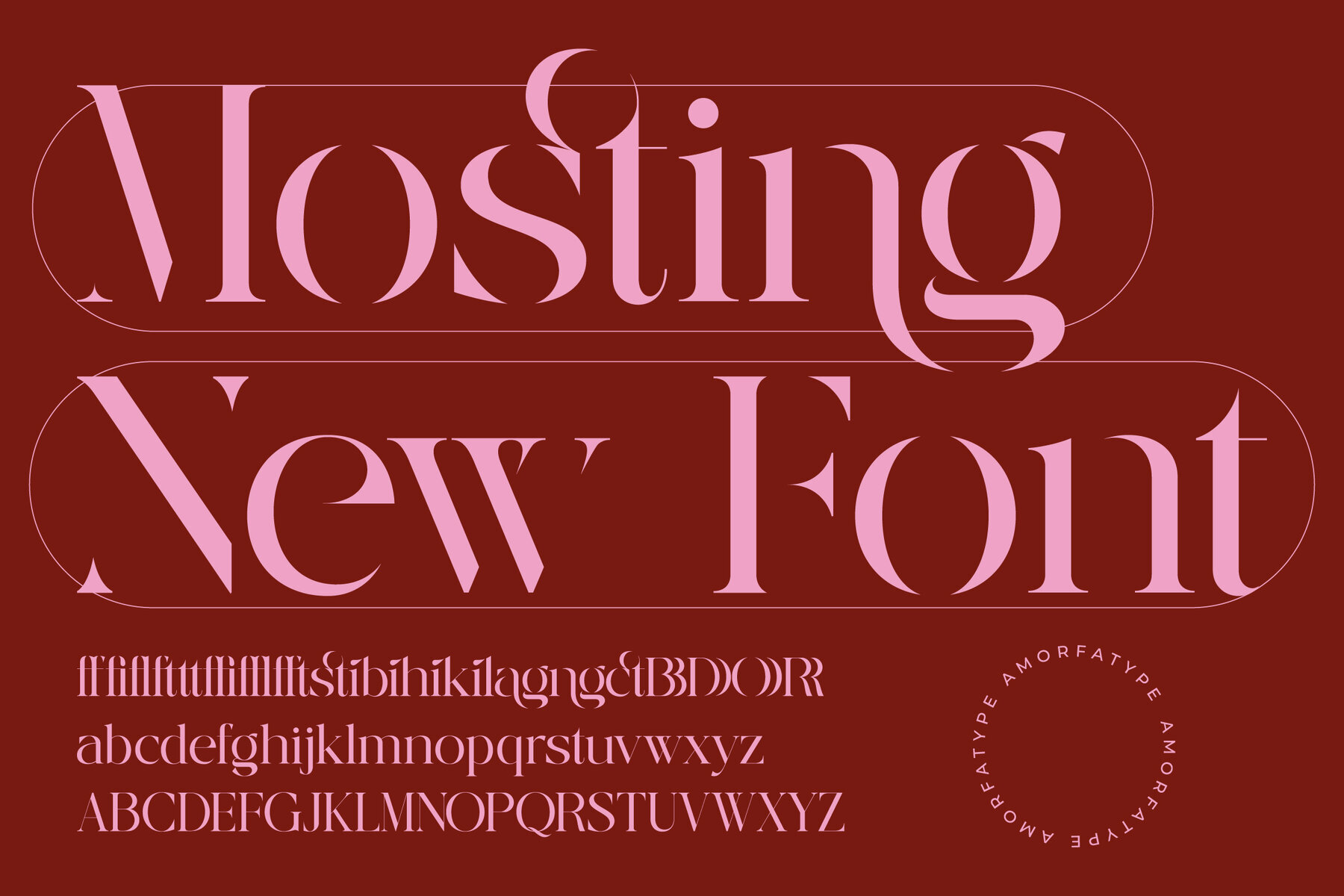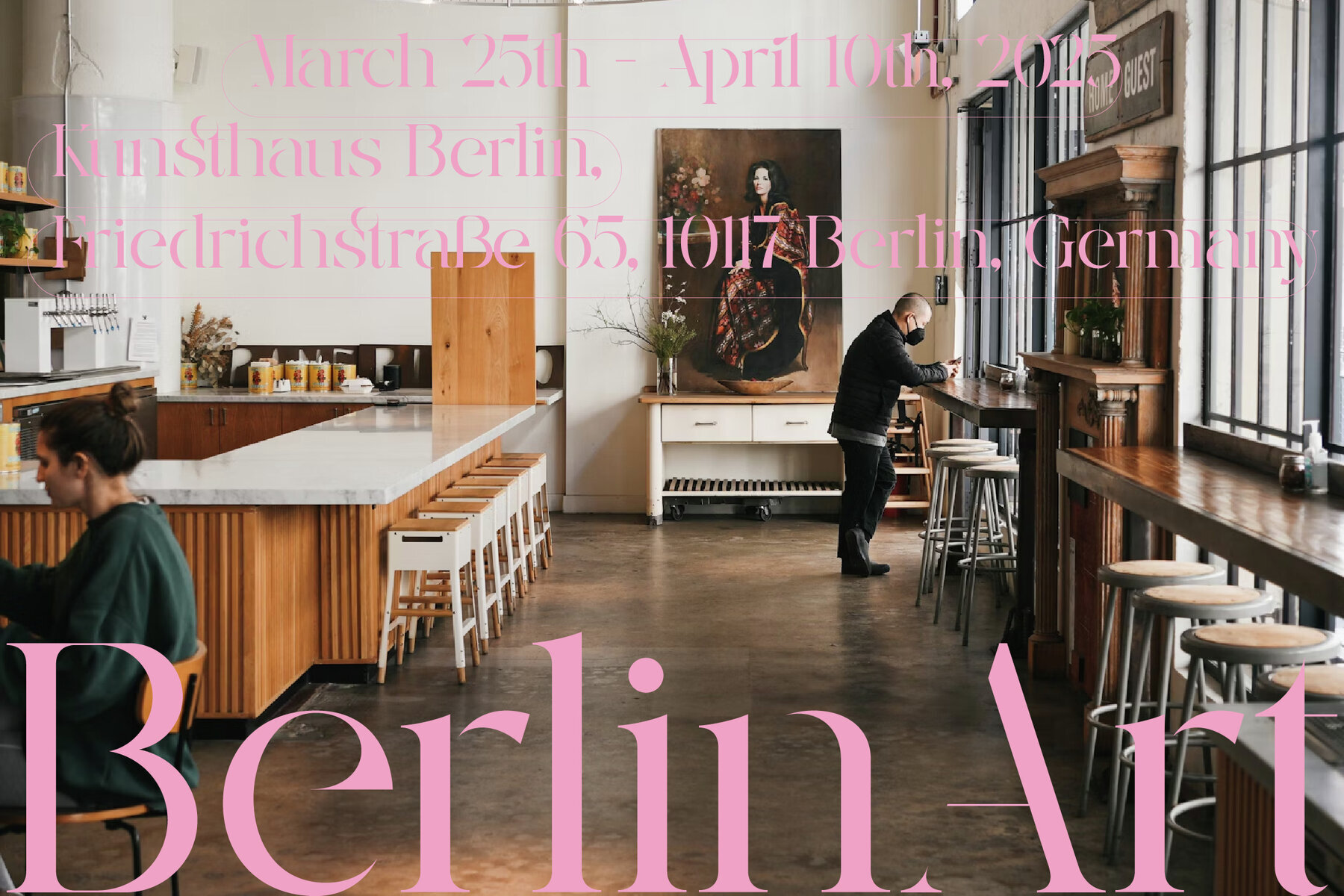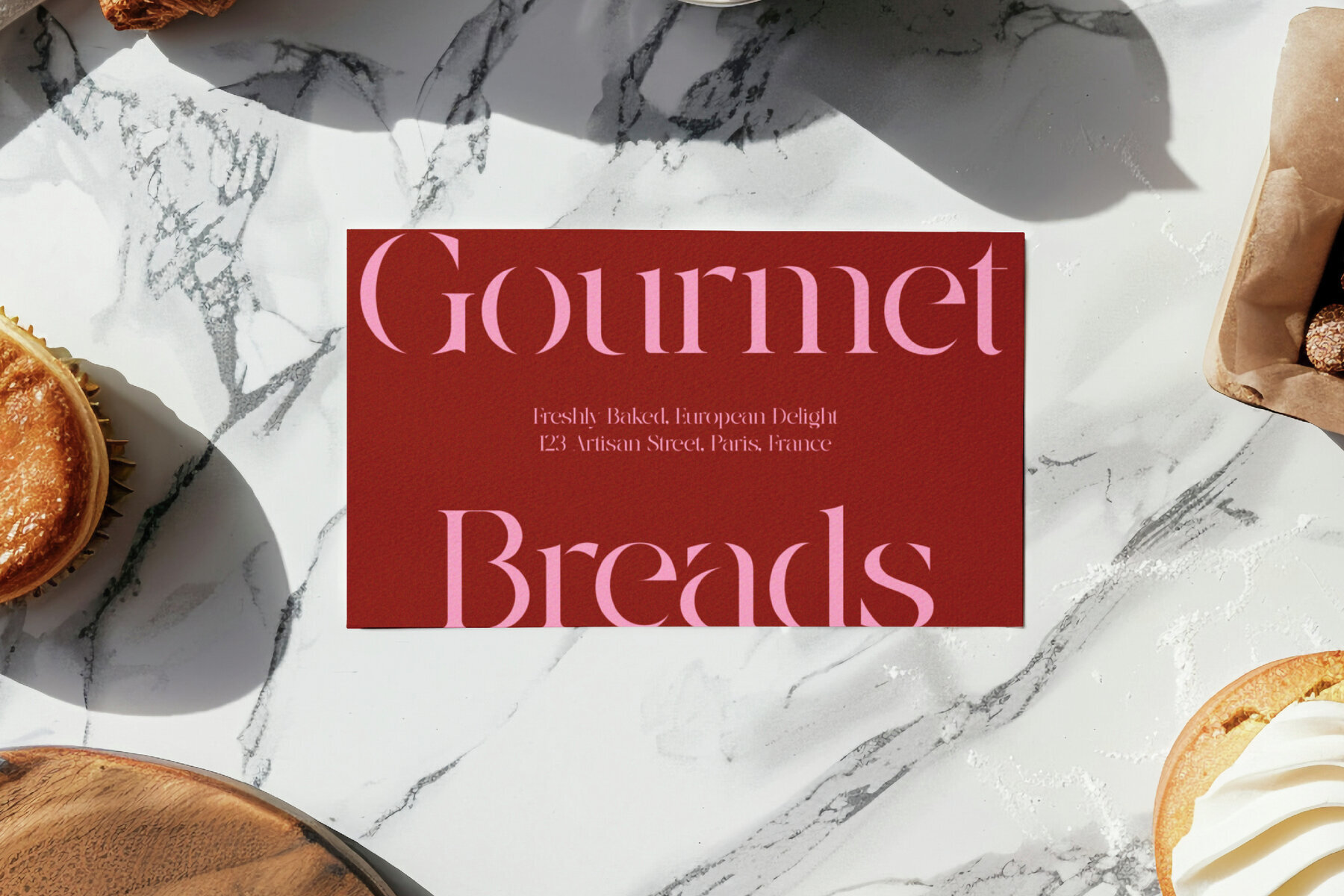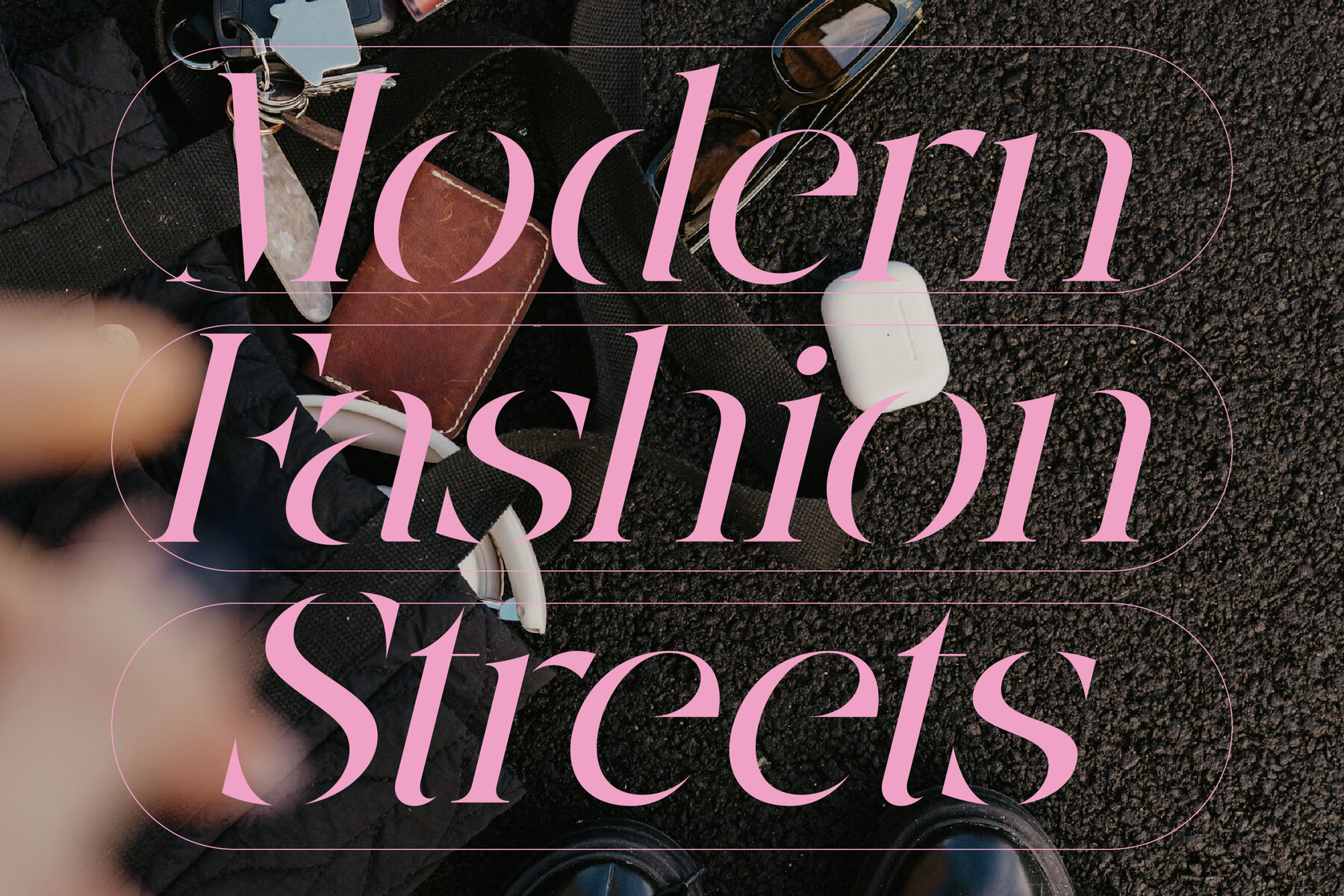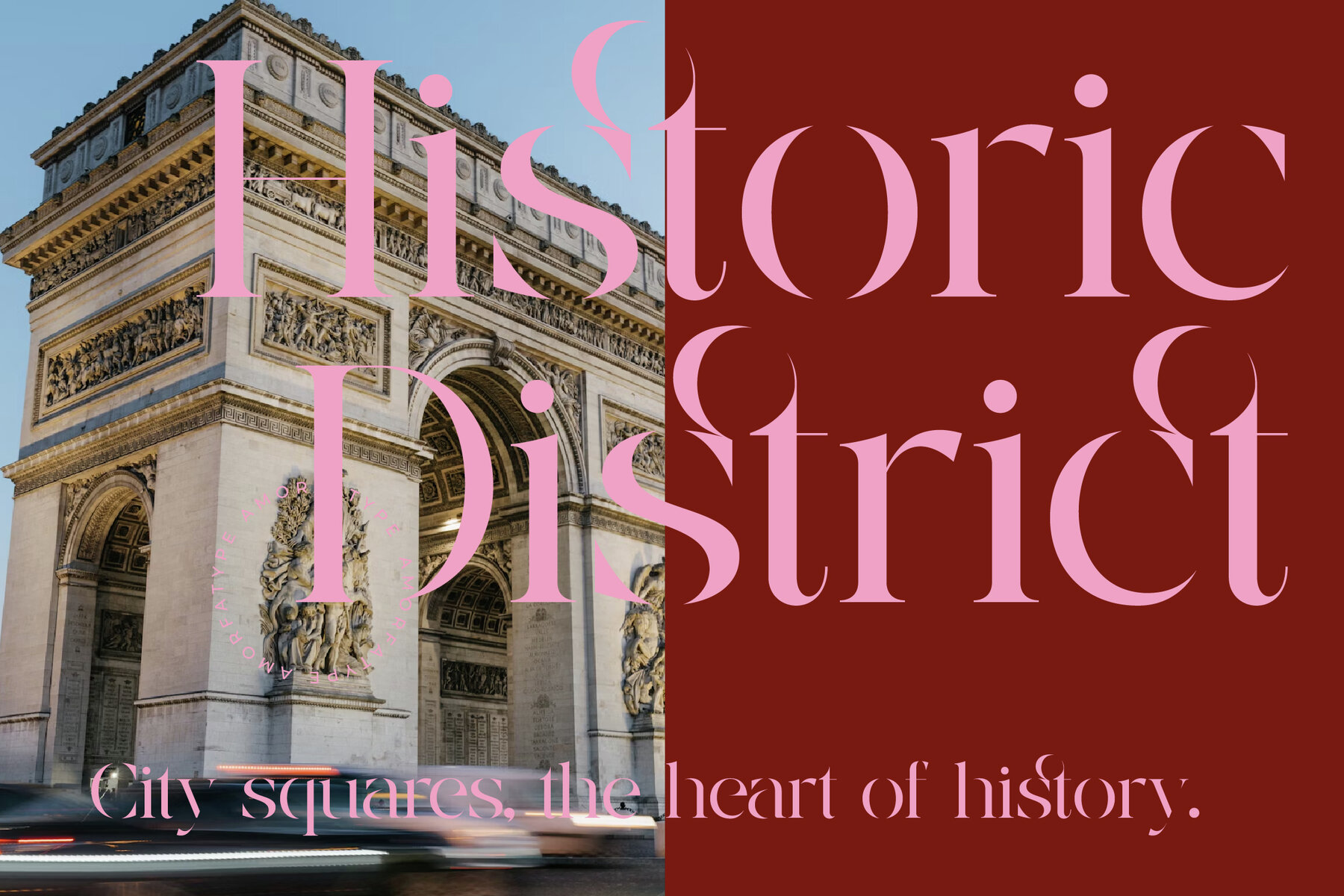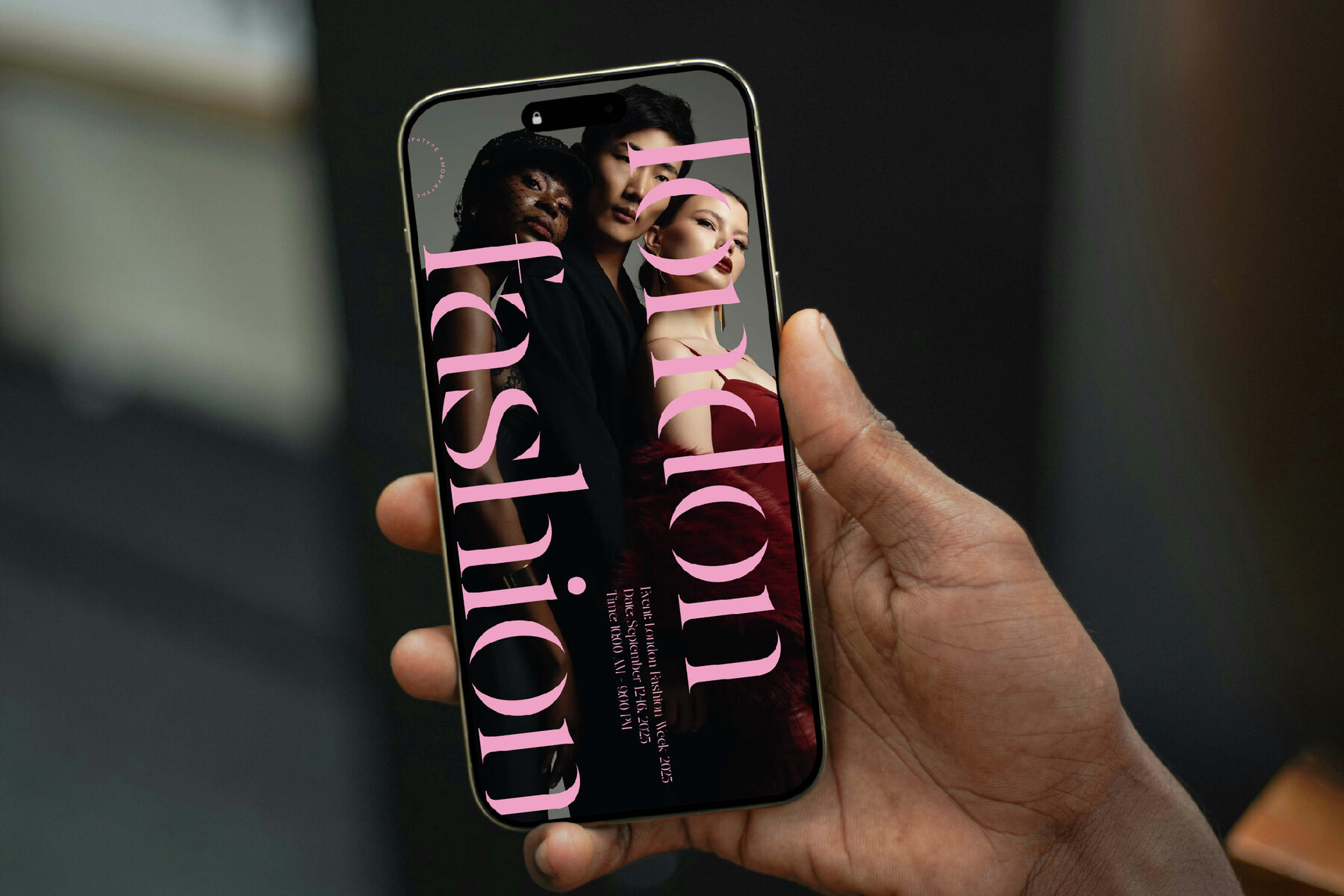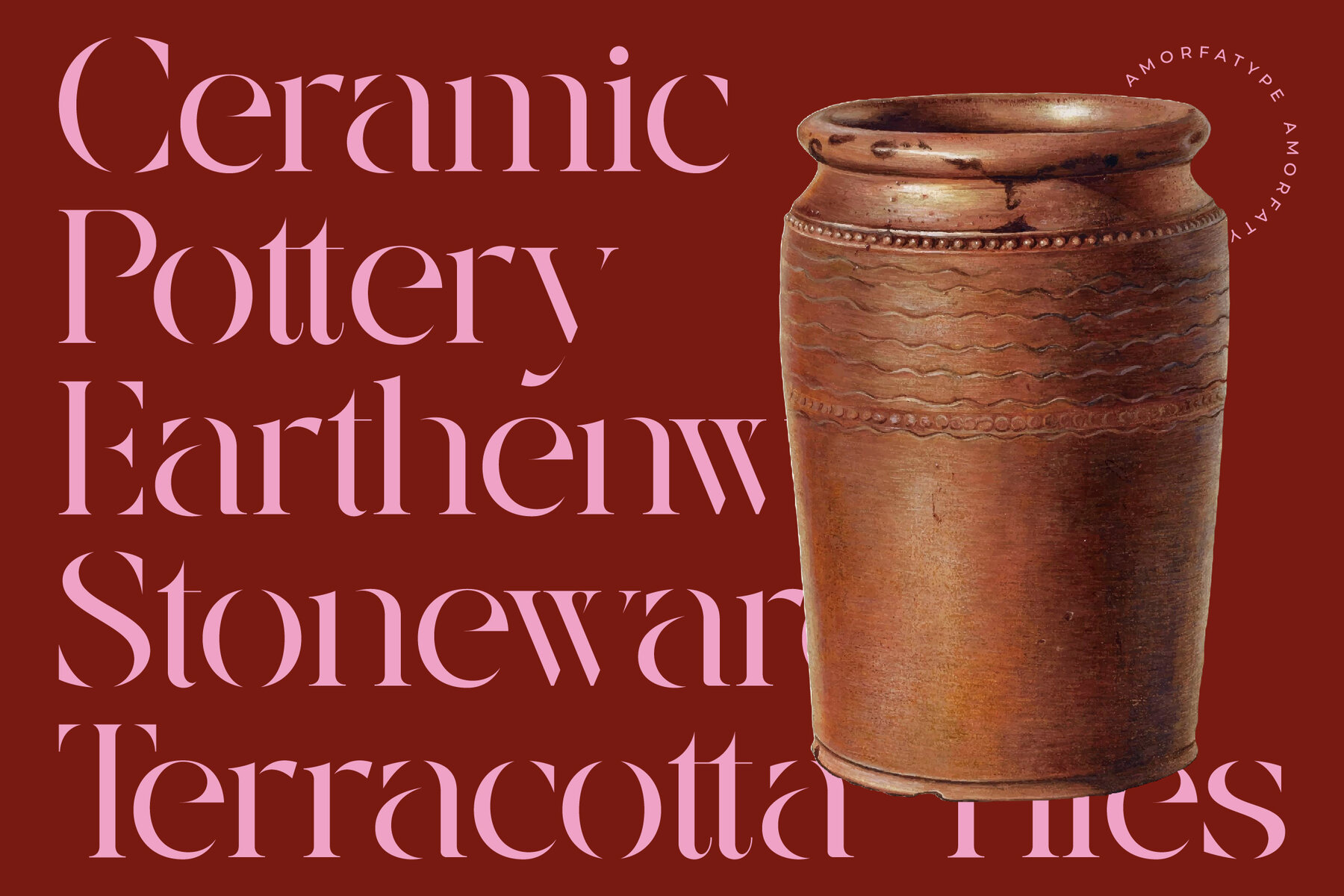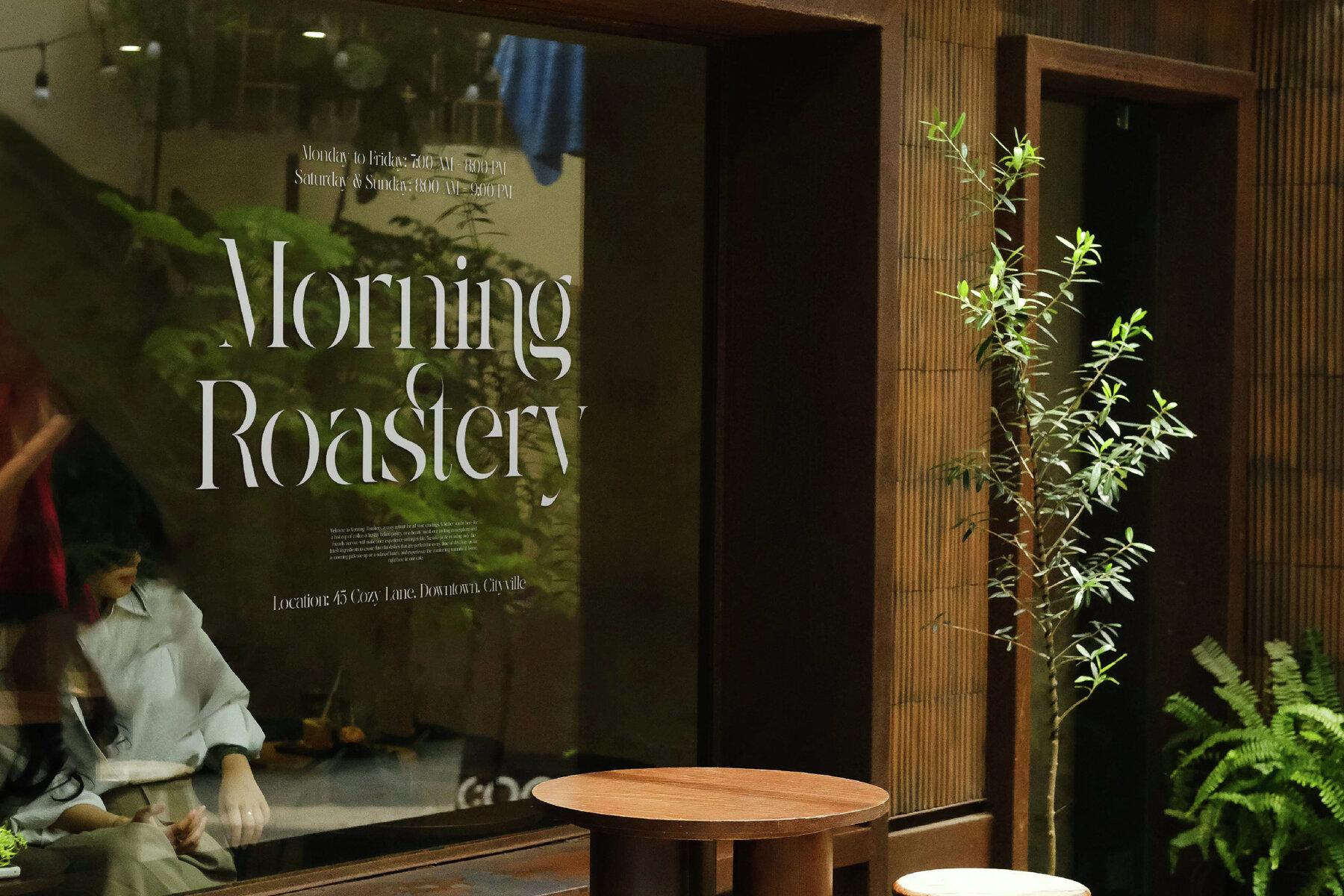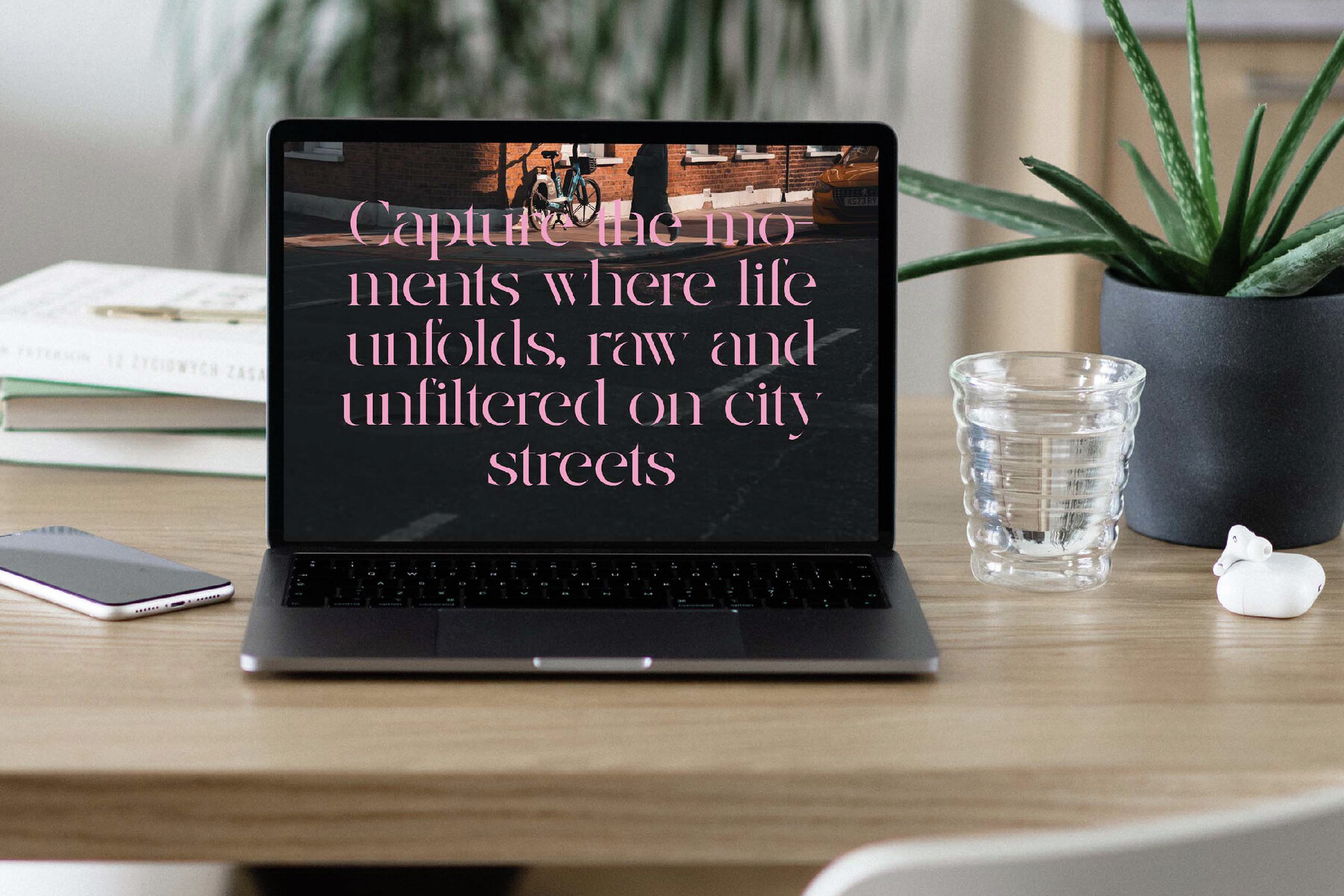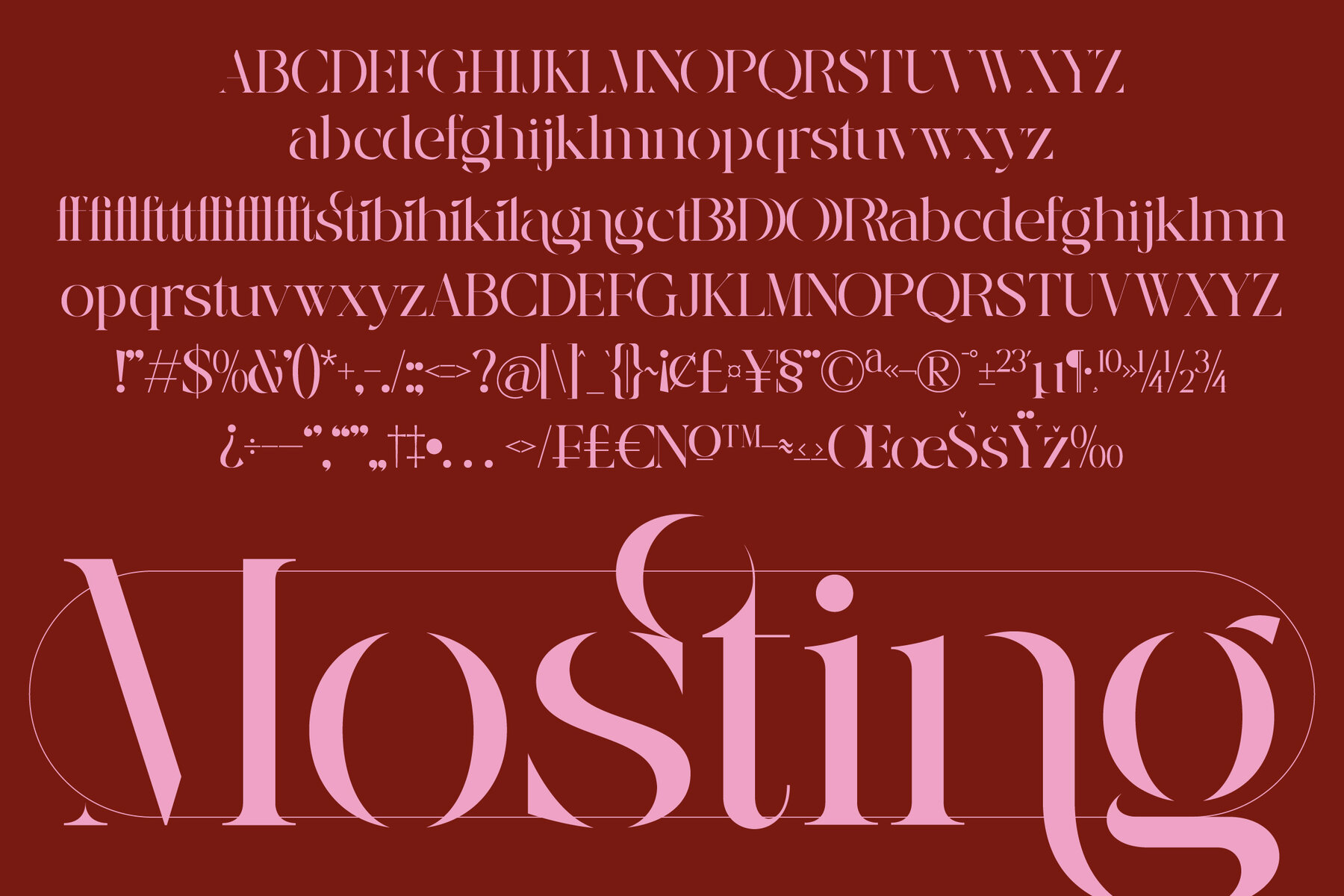
Mosting Font
Mosting Modern Stencil Serif Font by Amorfatype Mosting is a bold and modern stencil serif font that seamlessly blends contemporary sophistication with a touch of industrial elegance. Its sharp, geometric serifs and precise stencil cuts create a striking yet refined aesthetic, making it a standout choice for innovative and stylish design projects. The subtle balance between structured letterforms and open spaces enhances both readability and visual impact, offering a unique combination of strength and elegance. Designed for versatility, Mosting excels across various creative applications, from luxury branding and editorial layouts to cutting-edge digital designs. Its bold yet sophisticated character makes a lasting impression in both striking headlines and detailed typography. Each letterform is meticulously crafted to maintain clarity while embracing a distinctive stencil style, ensuring both functionality and artistic appeal. This Package Includes: